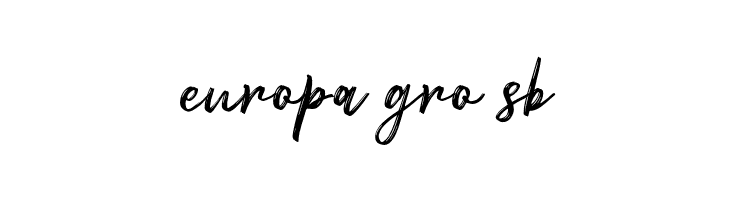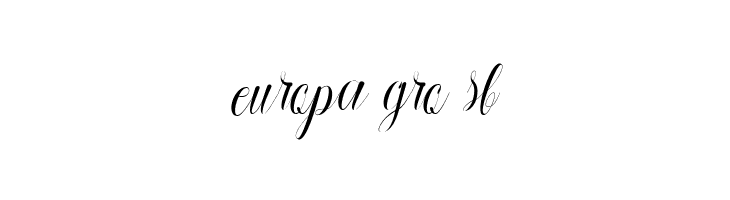
A delicate, flowing script font with thin lines and graceful curves.
A playful and elegant script font with a handwritten aesthetic.
An elegant, flowing script font with bold, cursive letterforms and decorative flourishes.
A playful, handwritten font with smooth, rounded edges and a casual vibe.
A highly decorative font with intricate, tribal-like designs.
Intricate, symmetrical tribal motifs with high contrast and bold lines.
A playful, handwritten font with fluid, slightly irregular strokes.
A bold, hand-painted style font with dynamic, uneven strokes.
An elegant, flowing script font with smooth, cursive letterforms.
A whimsical heart and arrow design perfect for romantic themes.
A playful, heart-filled decorative font with a whimsical and romantic style.
A playful, heart-themed font with bold, stylized characters.
A graceful and elegant script font with flowing, cursive strokes.
A bold, dynamic script font with flowing, cursive letters and strong visual impact.
A bold, playful font with rounded, bubbly characters and a whimsical style.
A playful heart and arrow design, ideal for romantic themes.
An elegant script font with flowing, cursive style and high contrast strokes.
An elegant script font with flowing, interconnected letters and calligraphic style.
A bold, handwritten-style font with dynamic, slanted characters.
A bold, playful handwritten font with thick strokes and rounded edges.
A playful, handwritten font with a casual and informal style.